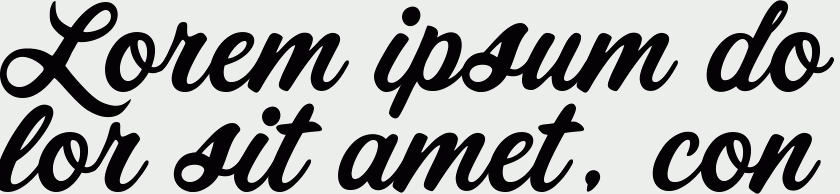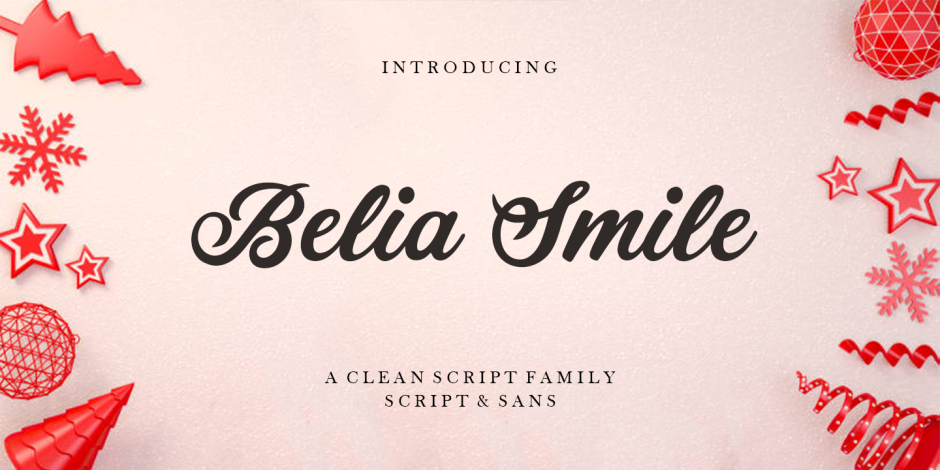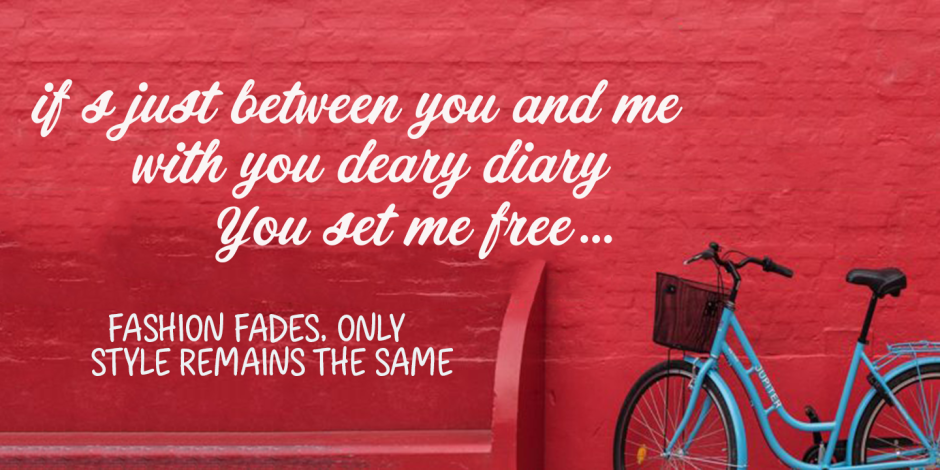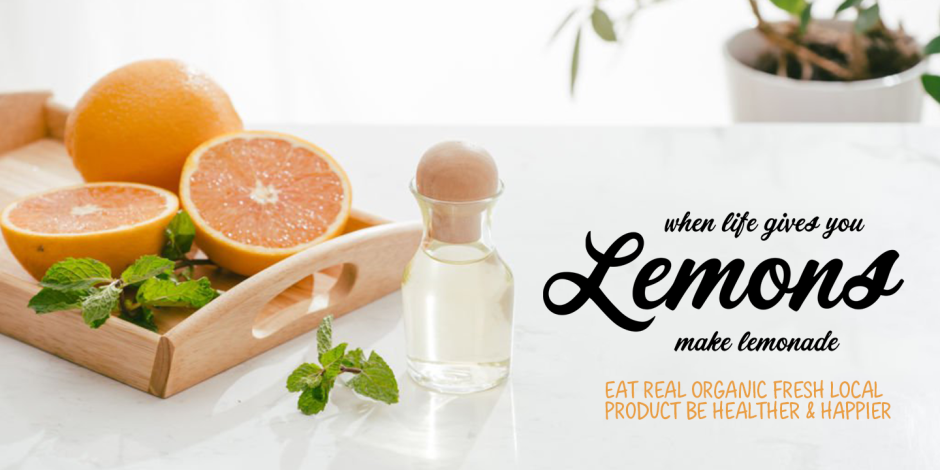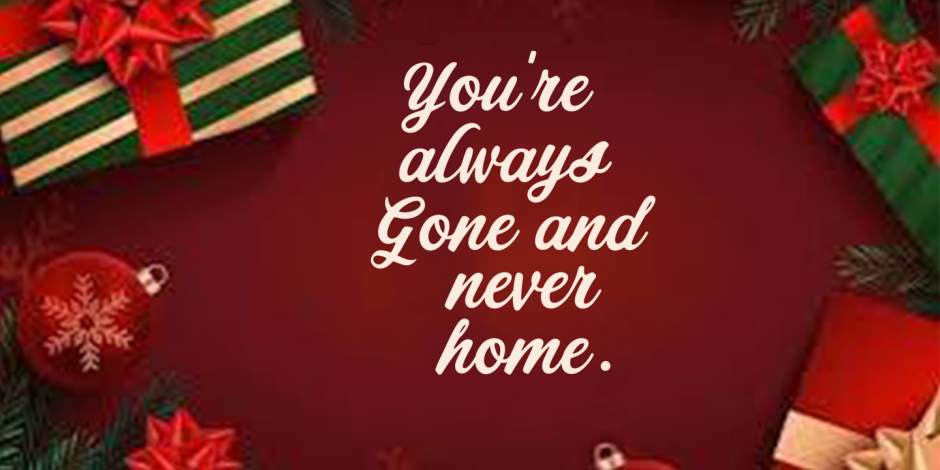
Belia Smile
Introducing Belia Smile, carefully crafted and balanced script typography with personality. You can be sure that Belia Smile is equipped with the most advanced typographic Open Type features such as alternative character sets, etc. The Smile Dream font style is applicable to all types of graphic designs on web, print, motion graphics, etc. and is suitable for T-shirts and other items such as posters and logos. Flowing characters are ideal for creating engaging messages. Mix and match Belia Smile Font with a collection of alternative weights and characters to suit your project.